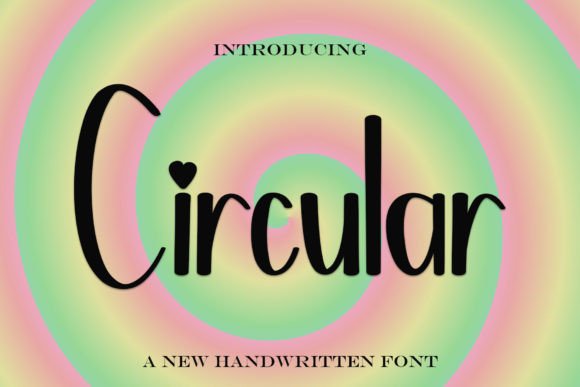
Circular Font Download Premium Font : Looking to add elegance and handcrafted charm to your next design project? Meet Circular Font — a beautifully handwritten typeface that brings warmth, sophistication, and a timeless aesthetic to your creative work.
Unlike overly ornate scripts or generic sans-serifs, Circular Font blends modern minimalism with the soft curves of handwritten design. The result is a style that feels both personal and professional, perfect for branding, invitations, and any project that needs a unique, graceful touch.
What is Circular Font?
Circular Font is an elegant handwritten typeface with smooth, rounded forms that echo the gentle shapes of natural handwriting. Its balanced curves and clean lines make it look refined without feeling stiff.
✨ Key features:
Smooth, flowing handwritten style
Rounded strokes with soft terminals
Balanced proportions for readability
Timeless elegance that feels fresh and modern
This mix of handwritten authenticity and contemporary design makes Circular Font truly versatile.
Why Designers Love Circular Font
💡 Elegant Yet Approachable:
Circular Font has an organic handwritten look that feels warm and personal, but its tidy shapes keep it sophisticated.
🖋 Timeless Style:
Neither too decorative nor too plain, it fits effortlessly into modern, classic, or minimalist design.
🎨 Versatility:
Works beautifully in digital designs, printed materials, and branding.
📱 Screen-Friendly:
Its smooth curves look sharp on high-resolution screens, making it great for social media.
🌿 Distinct Personality:
Stands out without overpowering other design elements.
Best Uses for Circular Font
Circular Font’s elegance and neat handwritten style make it ideal for:
✅ Branding & Logos:
Especially for creative studios, boutique brands, artisan products, or personal brands.
✅ Wedding & Event Invitations:
Add a handwritten touch to invitations, menus, or place cards.
✅ Social Media Graphics:
From quotes on Instagram to product launches and stories.
✅ Packaging & Labels:
For cosmetics, candles, handmade products, or gourmet foods.
✅ Editorial Design & Magazines:
Feature titles, pull quotes, or introductory text.
✅ Business Cards & Stationery:
A unique, memorable signature style.
Its soft, rounded letters make every project feel thoughtfully crafted.
Design Tips for Using Circular Font
✨ Pair with Simpler Fonts:
Use Circular Font for titles or key phrases; combine with a minimalist sans-serif (like Lato or Open Sans) for body text.
🎨 Mind the Size:
Circular Font’s curves look best in medium to large text sizes.
🌱 Use Subtle Colors:
Earth tones, muted pastels, or soft gold can enhance its elegance.
📏 Adjust Letter Spacing:
Tighter tracking for modern, bold looks; slightly looser spacing for airy, elegant designs.
🖼 Add Texture:
Combine with watercolor backgrounds, paper textures, or foil effects for extra charm.
Creative Design Ideas with Circular Font
💍 Wedding Invitation Suite:
Names in Circular Font paired with classic serif details.
📸 Photography Logo:
Business name in Circular Font, paired with a minimalist icon.
📱 Instagram Quote Post:
Inspiring words in white over a soft pastel background.
🎁 Product Labels:
Handmade soap, candles, or skincare packaging with product names in Circular Font.
💌 Greeting Cards:
“Thank You” or “Happy Birthday” in a stylish handwritten header.
📰 Magazine Feature Title:
Large, centered text in Circular Font for striking editorial impact.
Final Thoughts: Elevate Your Designs with Circular Font
Circular Font proves that handwritten fonts can feel refined, stylish, and versatile — without losing their natural charm. Whether you’re designing invitations, social media graphics, or branding materials, it brings a unique blend of elegance and personality.